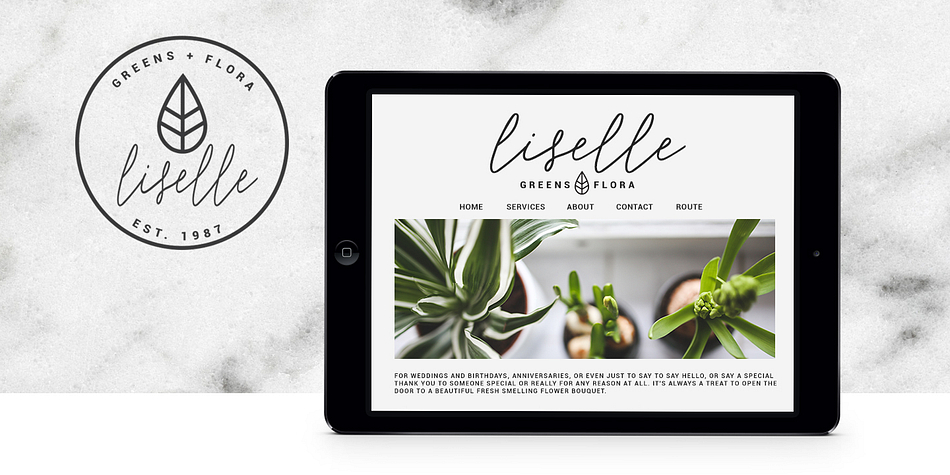
De Novembre
Designed by Angèle Kamp, De Novembre is a hand drawn font published by Angèle Kamp.
De Novembre is a sleek, signature, script which will give instant class and style to your work.
Use this font for branding, logo
De Novembre contains standard characters, lowercase, uppercase, numbers, punctuation, ligatures and international characters.
Displaying the beauty and characteristics of the De Novembre font family.
Highlighting the De Novembre font family.
De Novembre font family sample image.
De Novembre is a sleek, signature, script which will give instant class and style to your work. Use this font for branding, logo’s, signatures, invites, and all your other lovely projects.
De Novembre contains standard characters, lowercase, uppercase, numbers, punctuation, ligatures and international characters.